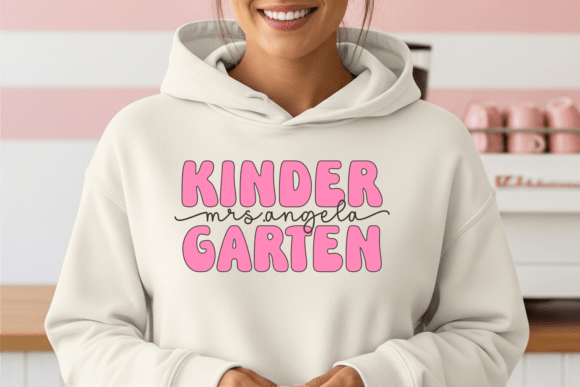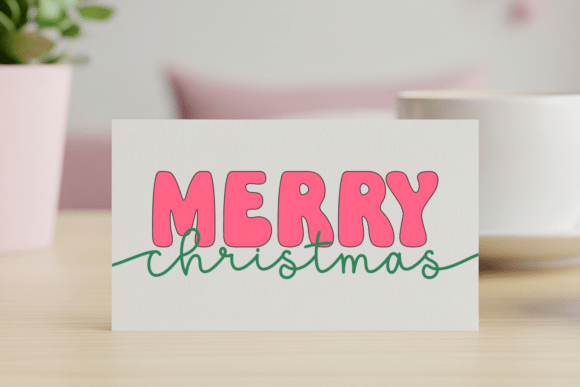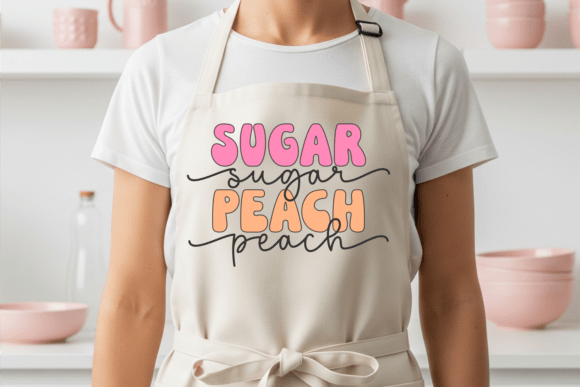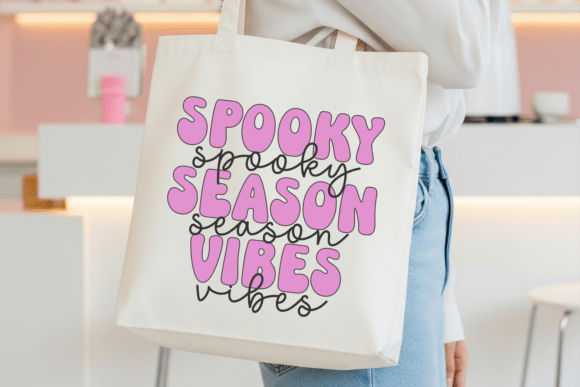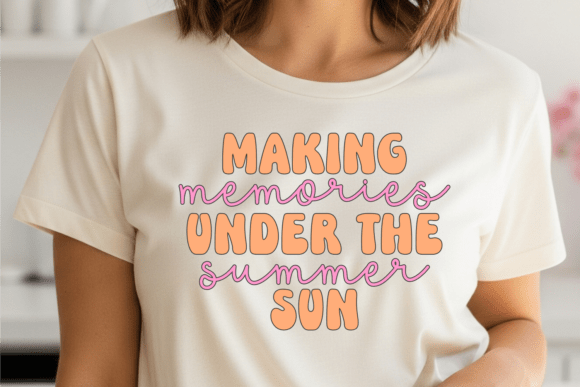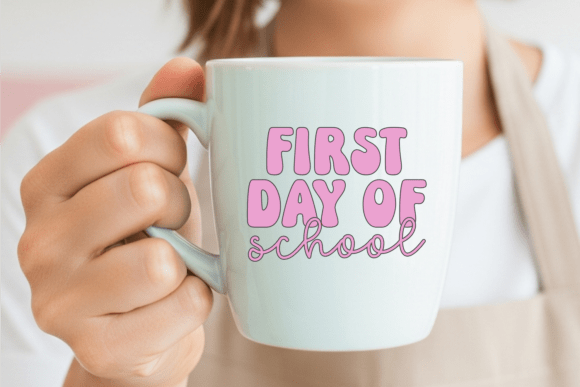
Introduction to Fallin for You Font
There’s a moment when every designer feels it – the spark of inspiration that sets their creative juices flowing. For some, it’s a burst of color, while for others, it’s a font that simply feels right. For me, it’s the Fallin for You Font, a charming duo that has been the perfect companion for my most heartfelt designs. With its irresistible blend of fun and romance, Fallin for You Font is the ultimate toolkit for designers looking to add a personal touch to their projects.
Whether you’re working on a free download, a high-quality branding project, or simply a creative endeavor, Fallin for You Font is the perfect resource to elevate your design game. With its transparent background and seamless integration, this font duo is a must-have for any designer looking to create designs that feel genuine and full of heart.
So, what makes Fallin for You Font so special? Let’s dive in and explore the magic behind this ultimate design resource.
Key Features of Fallin for You Font
- Unique Hand-Drawn Design: Fallin for You Font features a distinctive hand-drawn design that adds a touch of personality to any creative project.
- Transparent Background: The font’s transparent background makes it easy to layer over images or use as a design resource for creative projects.
- Perfect for Creative Projects: This font is ideal for use in various creative projects, including logos, branding materials, and social media graphics.
- Easy to Use: With its clean and simple design, Fallin for You Font is easy to use and perfect for designers of all skill levels.
Honest Review: Fallin for You Font
I recently had the chance to work with the Fallin for You Font, and I must say, it’s a great addition to any design resource collection. One of the things that stood out to me was the high quality of the font, which made it perfect for a creative project I was working on.
Here are some of the things that worked well for me:
- ✨ The font has a unique and playful feel to it, which made it easy to incorporate into my design.
- ✨ The transparent background allowed me to easily layer the font over different images and colors.
That being said, there are a few limitations to keep in mind:
- ⚠️ The font may not be suitable for formal or corporate designs, as it has a more casual feel to it.
- ⚠️ The font is not as versatile as some other fonts, so you may need to get creative with your design to make it work.
Overall, I was really impressed with the Fallin for You Font and would definitely recommend it to designers looking for a fun and creative font to add to their collection.
Getting the Most Out of Fallin for You Font
To get the most out of the Fallin for You Font, use it in creative projects where a high-quality, transparent background is desired. This font is perfect for designing graphics, logos, and other visual elements.
The Fallin for You Font is commonly used in:
- Poster design
- Brochure design
When using the Fallin for You Font, remember to:
- Combine the font with other design elements, such as images and shapes
- Use the font in conjunction with a transparent background for a unique look